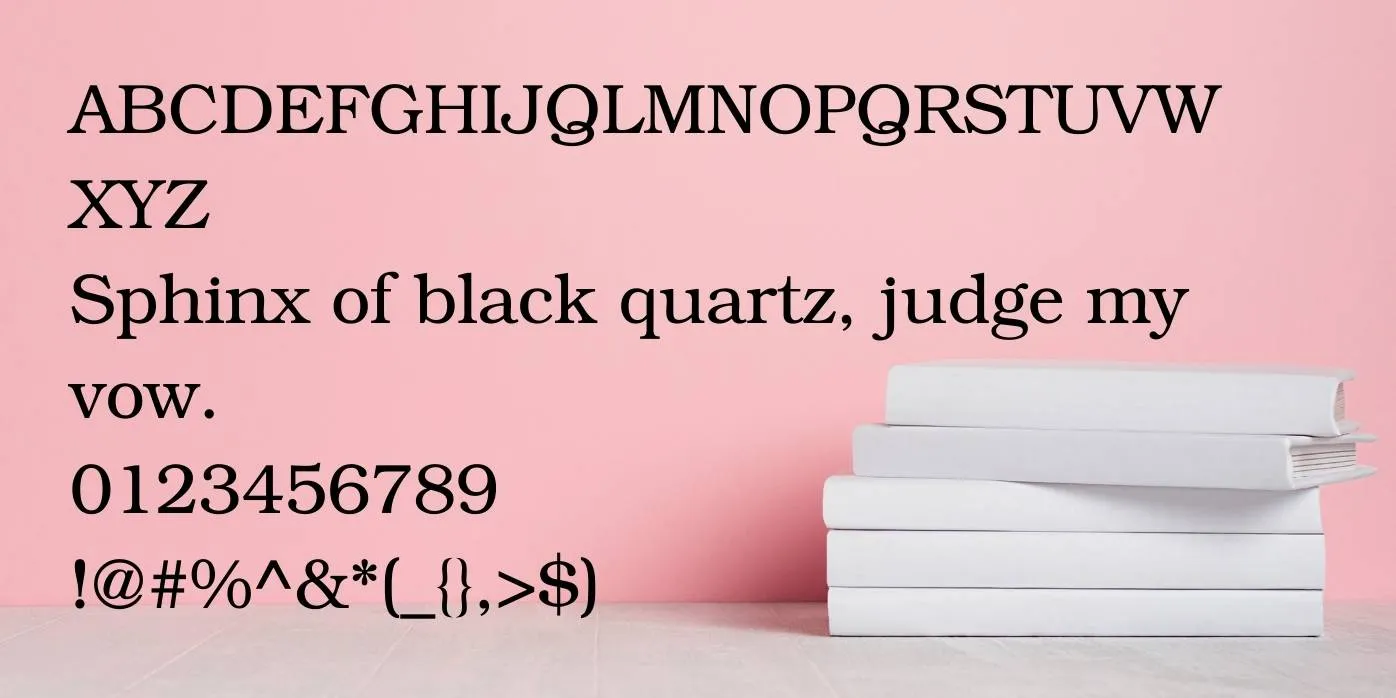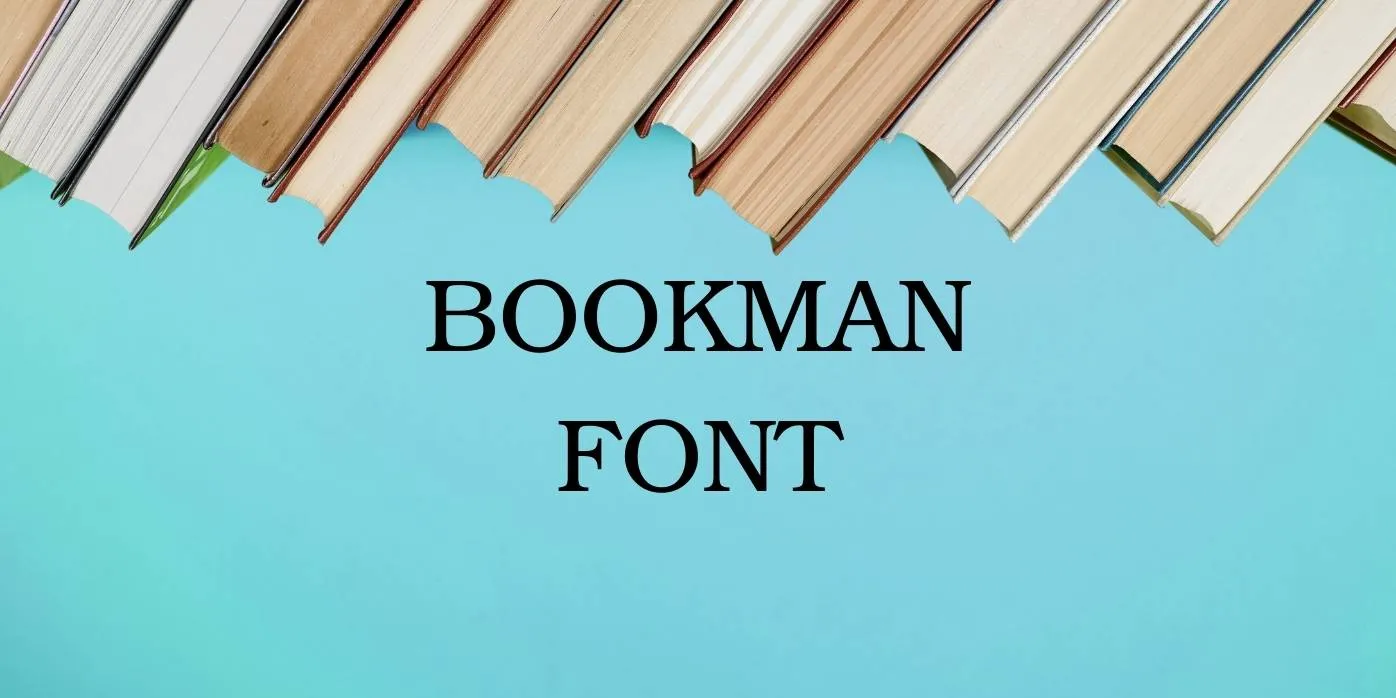
Bookman Font
Here is the Bookman Font that is famous for its bold and italic function. This typeface is widely famous for its text generation also known as Demi font. This typeface belongs to a Serif font family and it was created with the association of Ed Benguiat, Chauncey H. Griffith, Alexander Phemister.
The font family is very beautiful that has a TTF feature and has only a Regular style that includes Uppercase and Lowercase Alphabets, Number / Numerals, and many unusual symbols that you can utilize in many difficult tasks. It supports many different foreign languages and accents for international designers. It is flexible which could be a remarkable way to artwork in frame duplicate as proper as titles, and there is an understated beauty to it that we quite like. So, it’s considered super for extraordinarily-current designs.
The font characters are very general that provide a gorgeous feeling to the reader. Usage The words in this font are simple and family of serifs that usually look good in paperwork. You may have seen fonts like this used in your daily life because they have a very simple and peaceful look. Mostly Press industries use this kind of typeface in their Newspapers and magazines.
This font is the handiest one which has lines at the top of every person. They’re exquisite well first-class with common or essential purposes. Rather, a sans-serif font is similar to poppins font kind is without more traces. This typeface is very common for body text and headings for your document projects as well.
Bookman font is best typeface for display or documents purposes. It belongs to a serif typeface family. It is great for web projects as well, you may have use it on your web projects also if you have its full access. Is Bookman Font Free?
That is the evidence of its regular serif shape and general letters, that you may download by our website. Who Created Bookman Font ? Bookman font is one of best serif typeface that is great for body text and headings as well. The designers of this typeface are Ed Benguiat, Chauncey H.
Griffith, Alexander Phemister.